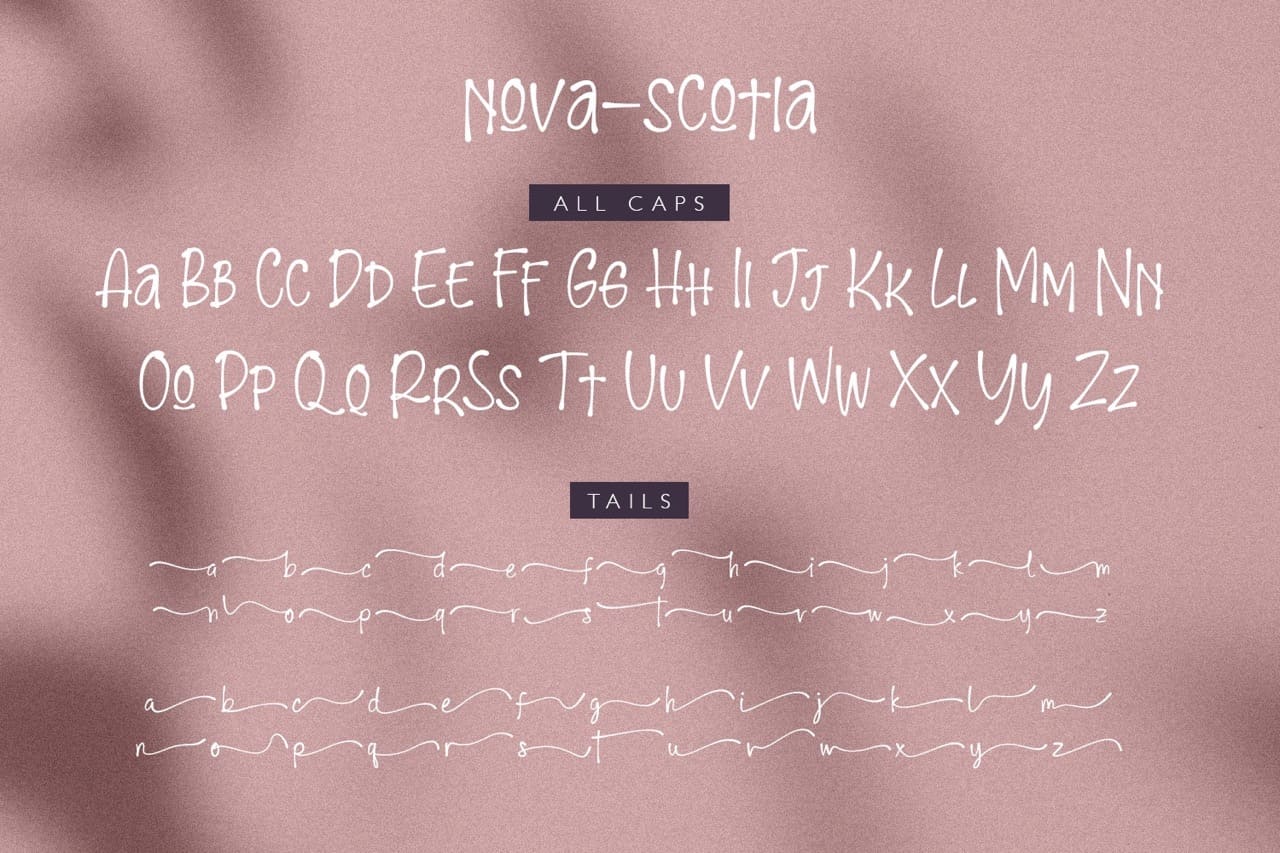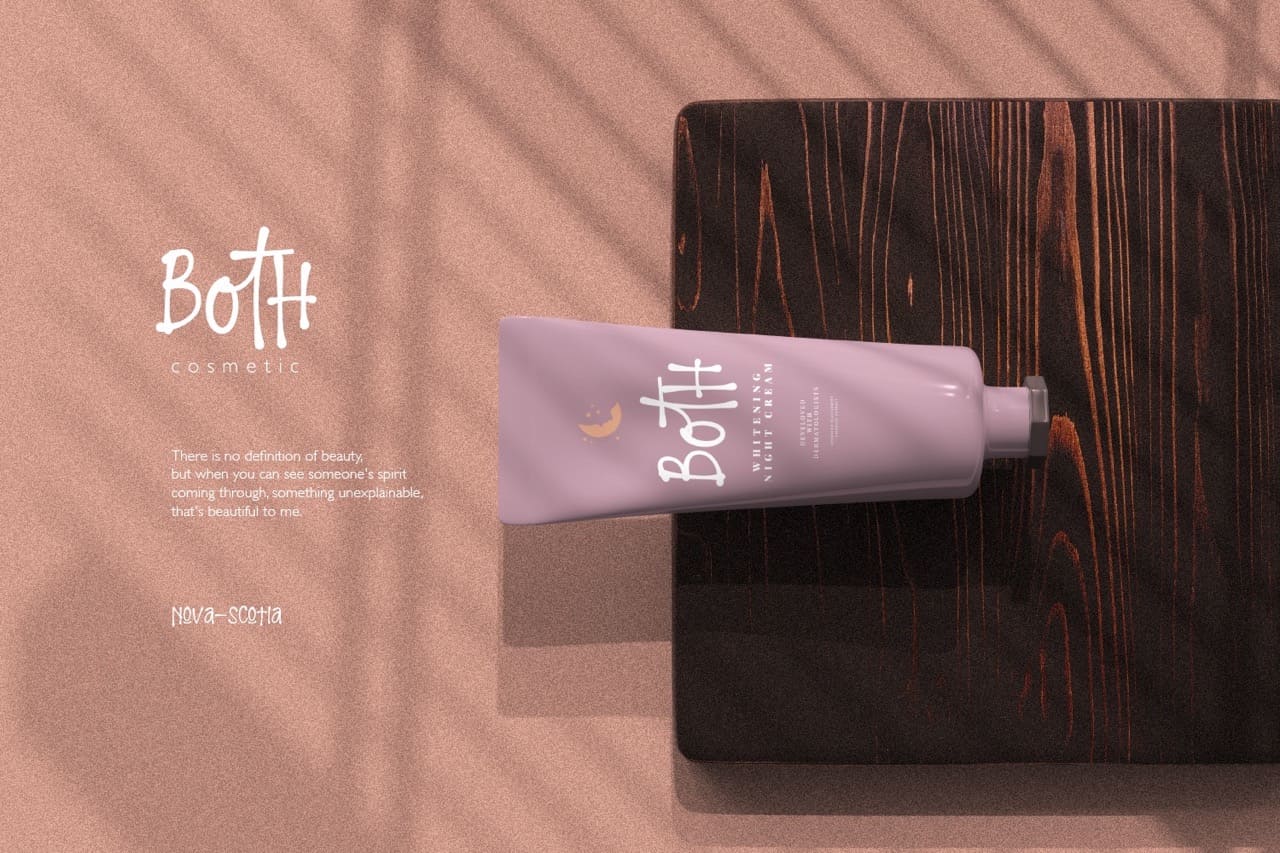
Nova-Scotia is a charming handwritten font with a personalized touch. Nova-Scotia script is ideal for branding, logo design, wedding designs, social media posts and advertisements, product packaging and product designs. It’s a gorgeous font that will work well across many different projects.
- Stylistic Ligatures and Alternate Glyphs
Nova-Scotia Handwriting